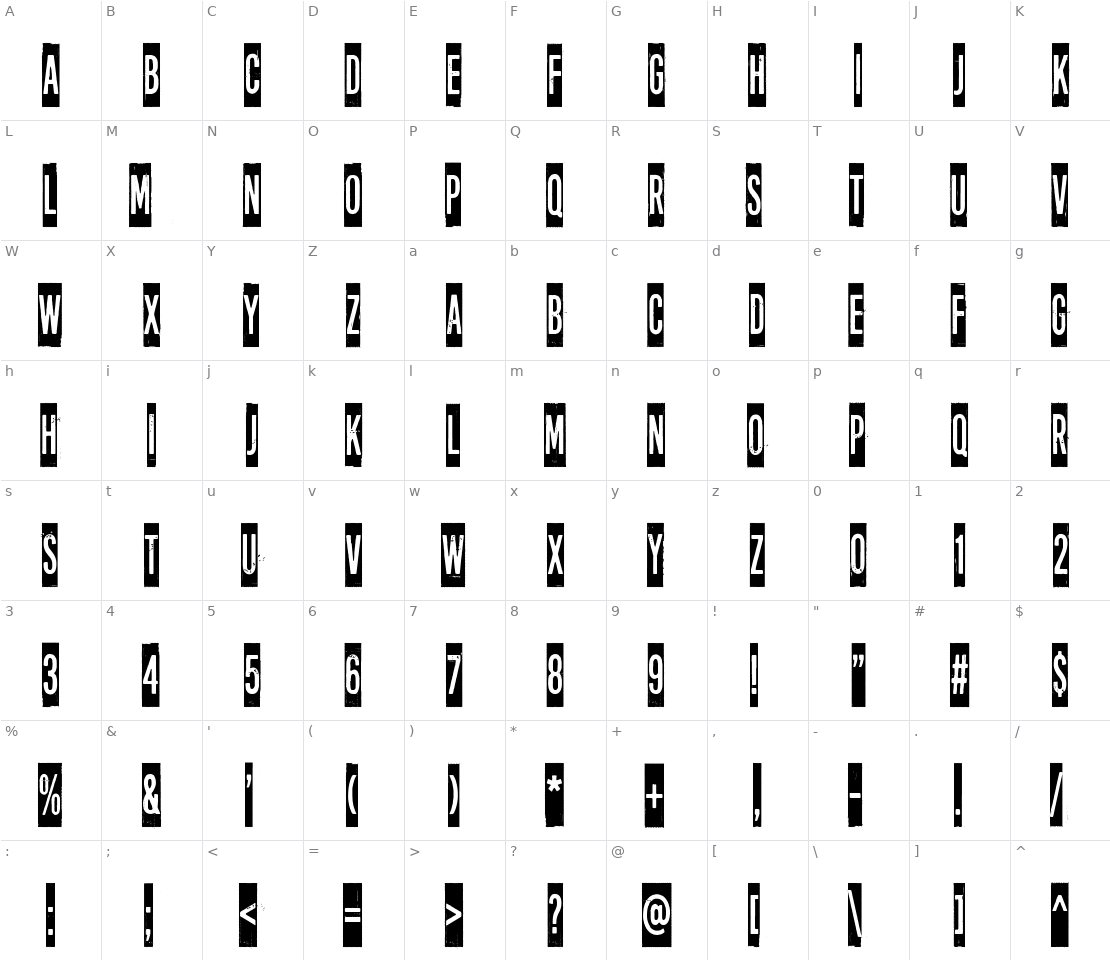
Long distance call
by junkohanhero · Website
Long distance call is a condensed, uppercase stencil face from junkohanhero with heavy distressing that makes every letter look like it was spray-painted through a worn-out template. The bold letterforms are rough and gritty, with enough grunge texture to feel authentically weathered rather than digitally faked. Built for posters, album art, and dark-themed headlines where you want type that looks like it survived something.